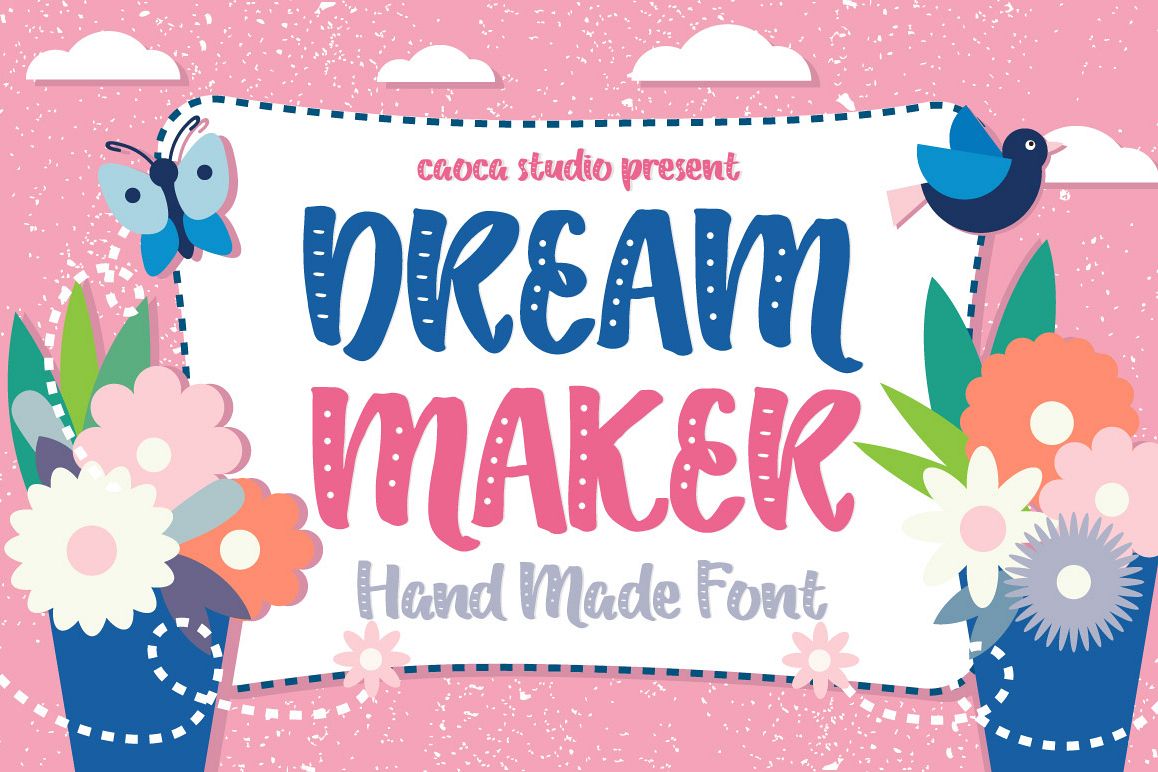
Hi all, Dream Maker is a handmade typeface suitable for your logo, title, text book, with decorative style. Design your t-shirt, post card, greeting card with this beautiful typeface!You will get :